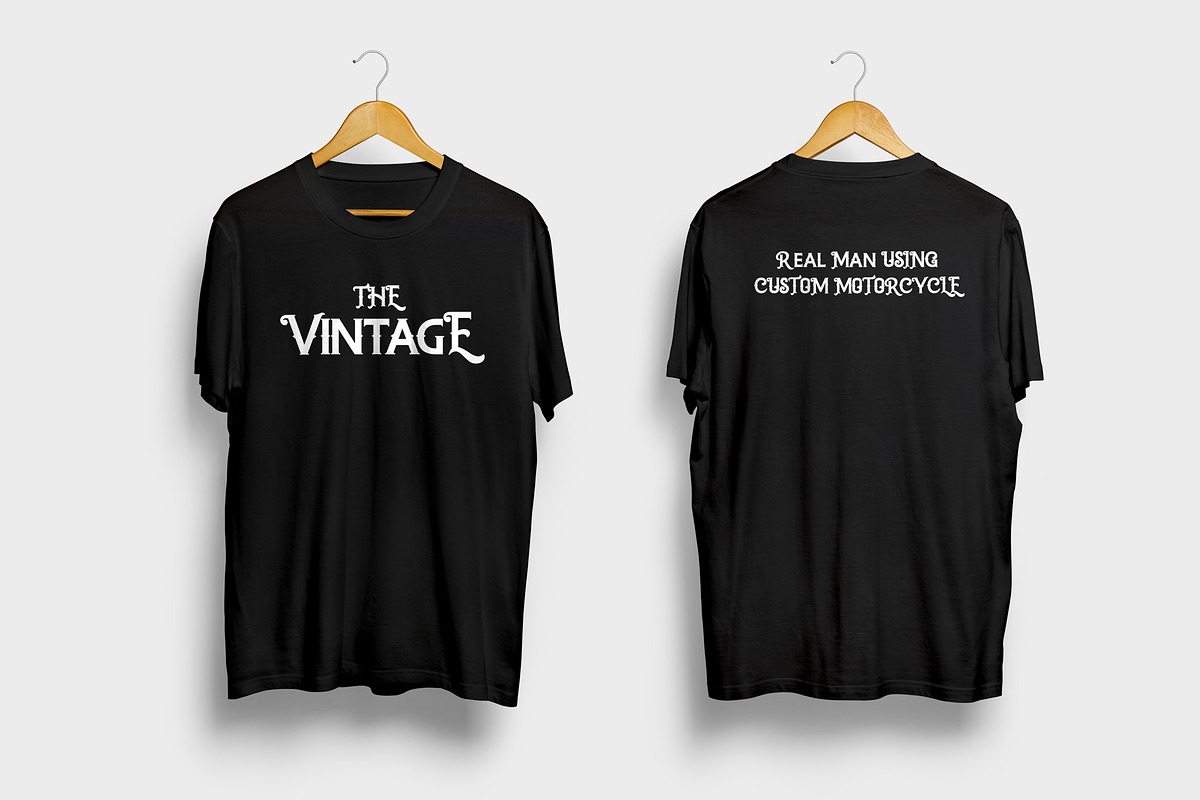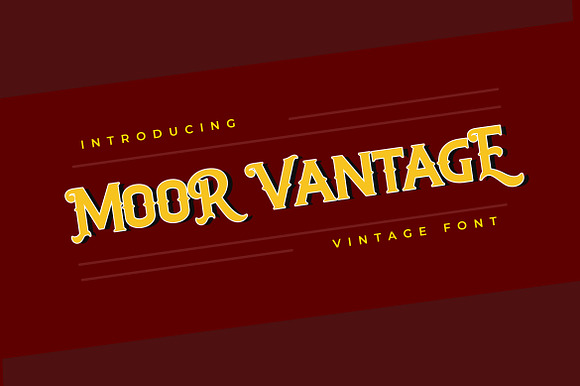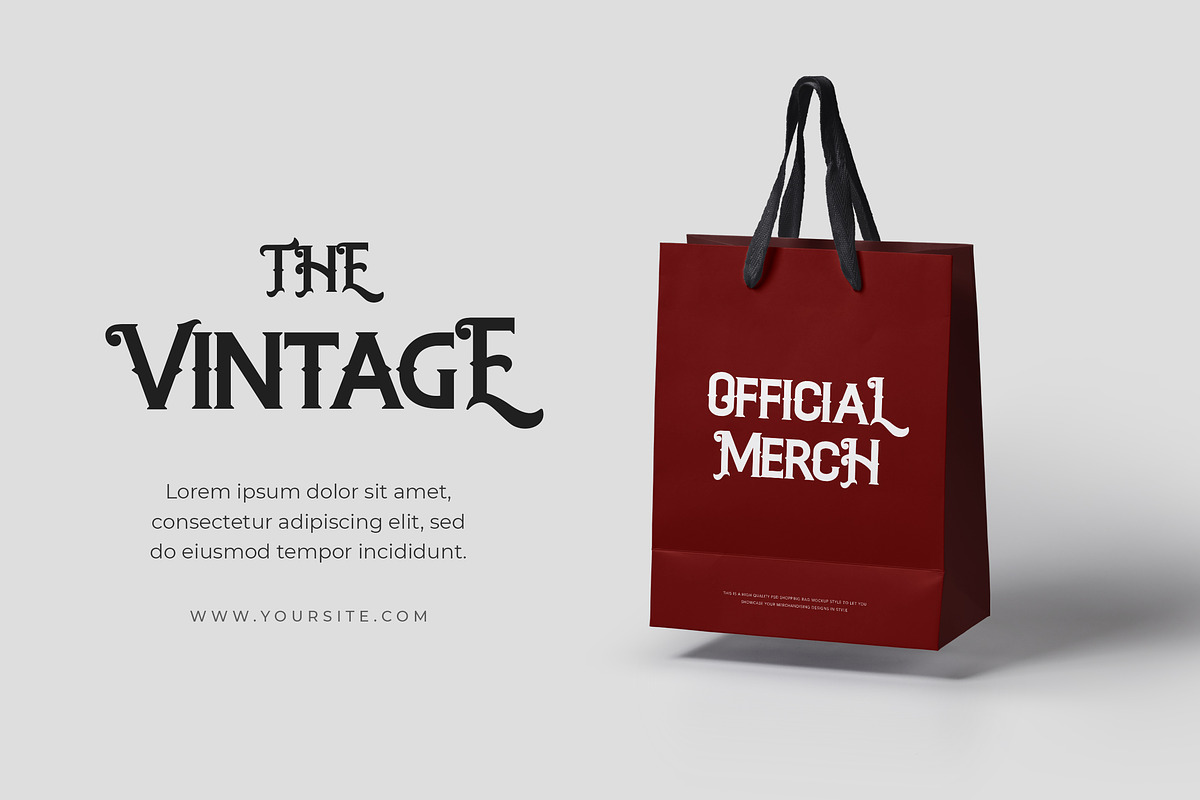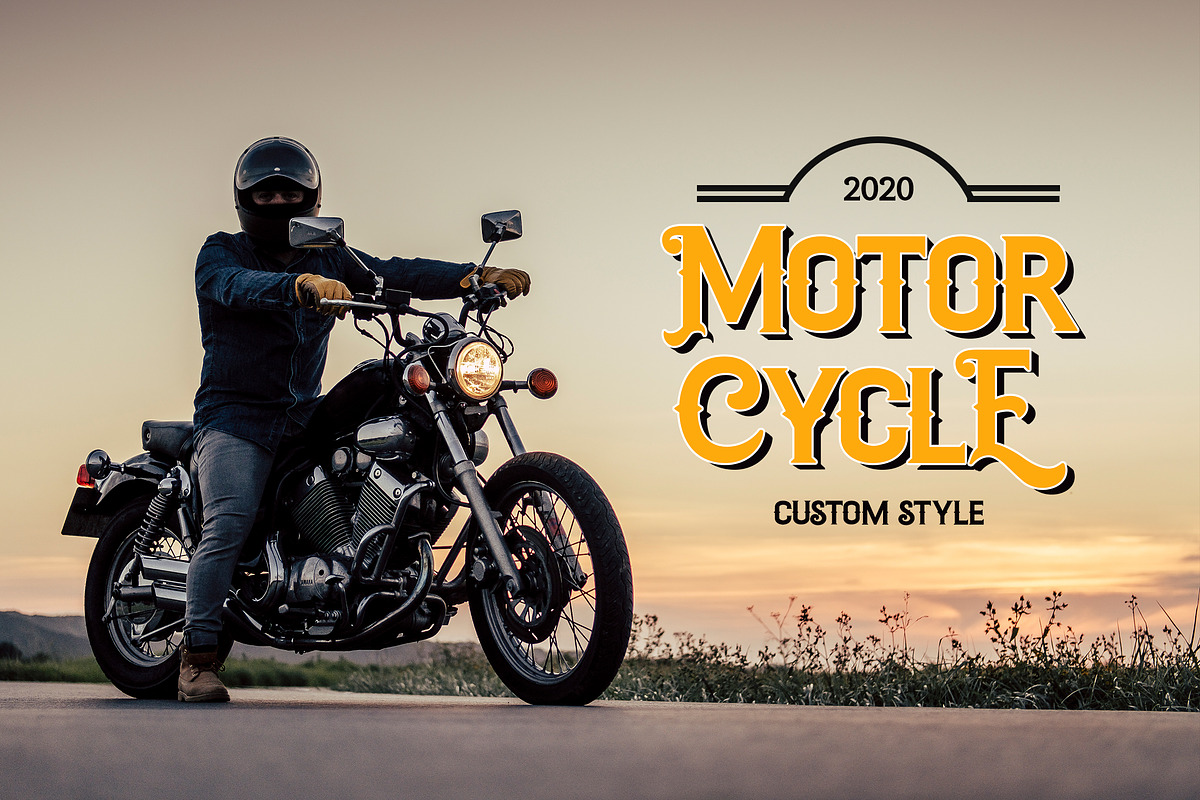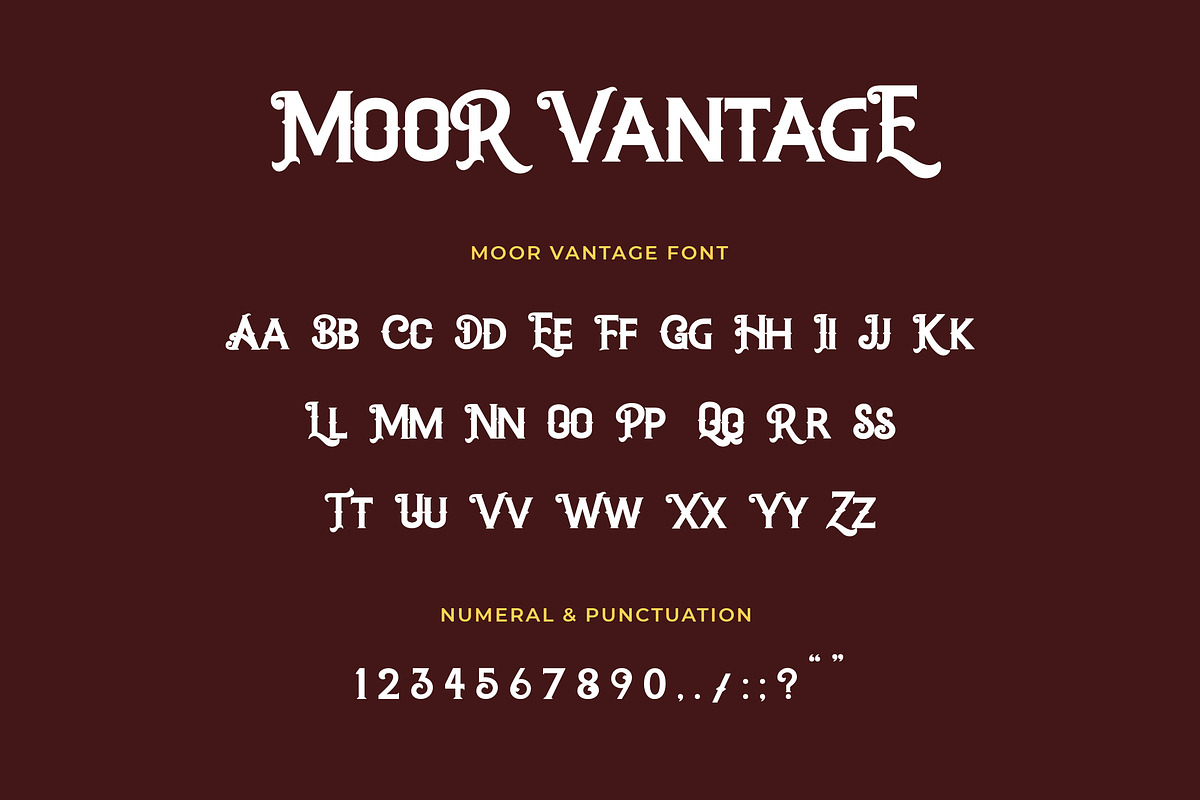
MOOR VANTAGE Classical Vintage Font
MOOR VANTAGE classical vintage display typeface embodying vintage and elegant curves with functional structure. Ideal for adding beautiful, properly scaled flourishes to the middle or end of wordmarks gritty logos, layouts, and type treatments.
MOOR VANTAGE Classical Vintage Font by UICreative fits naturally into Branding, posters, packaging, typography.